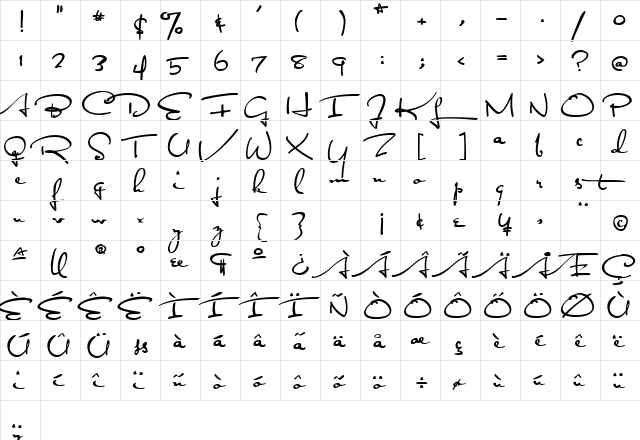
Satisfaction Regular
Design Context for Satisfaction Typeface
Satisfaction is a composed and adaptable typeface that performs quietly and consistently across a wide range of design contexts.